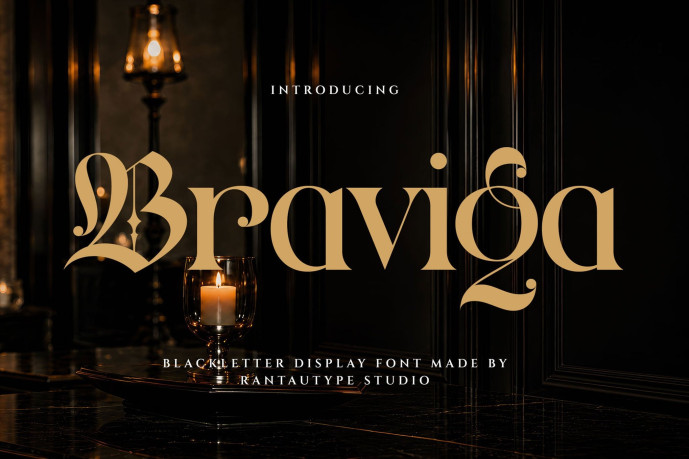
Braviga Font is luxury-modern blackletter hybrid serif with high contrast strokes, ornamental terminals, dramatic curves, and couture-level elegance. Braviga is a perfectly choice for any creative endeavor, creating, modern, lifestyle design such as logotype, title, cover, branding, display and magazine, social media posts, advertisements, printed quotes, product packaging, corporate brand, product designs, labels, watermarks, special events and any other project with dramatic touch.